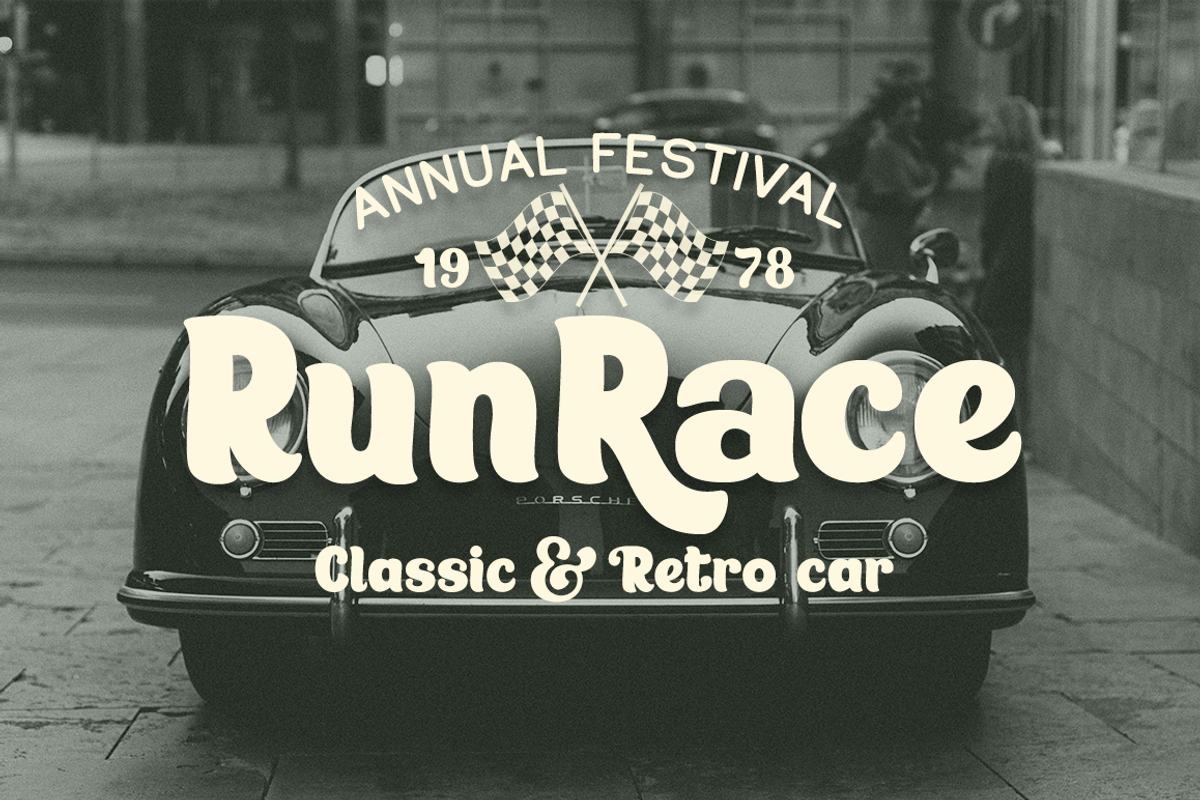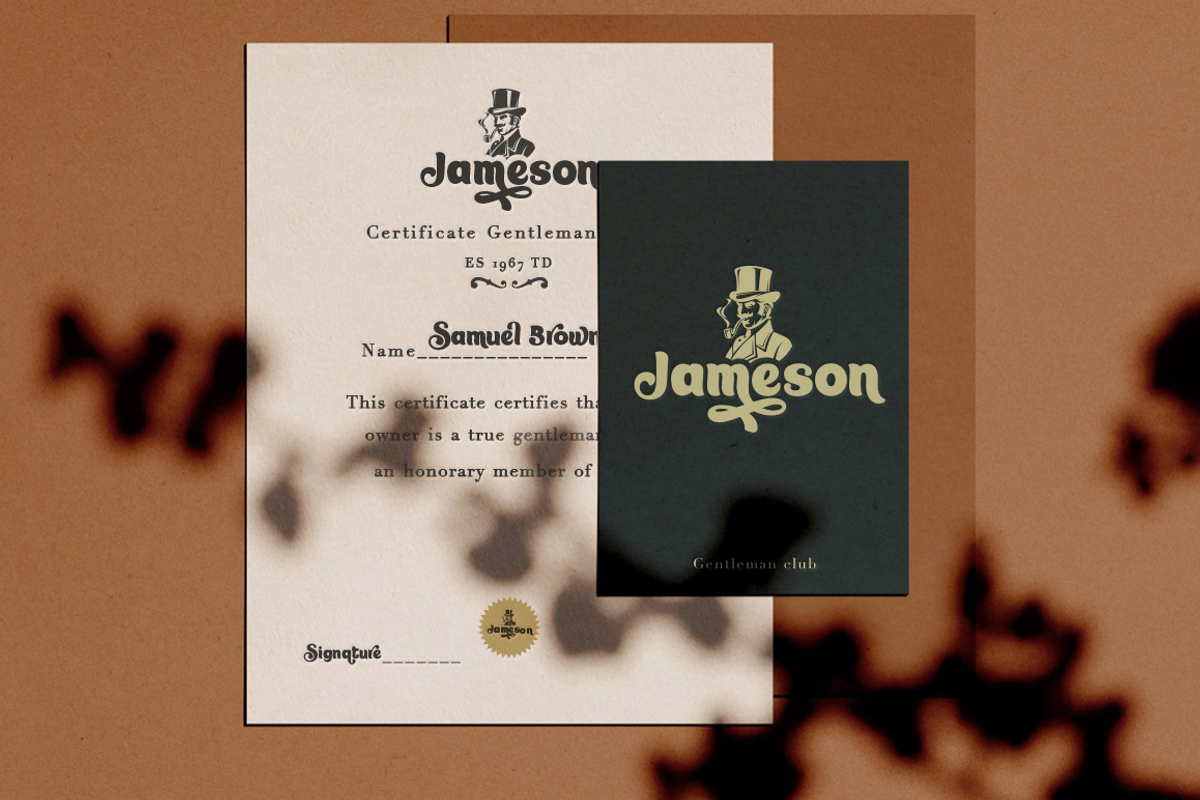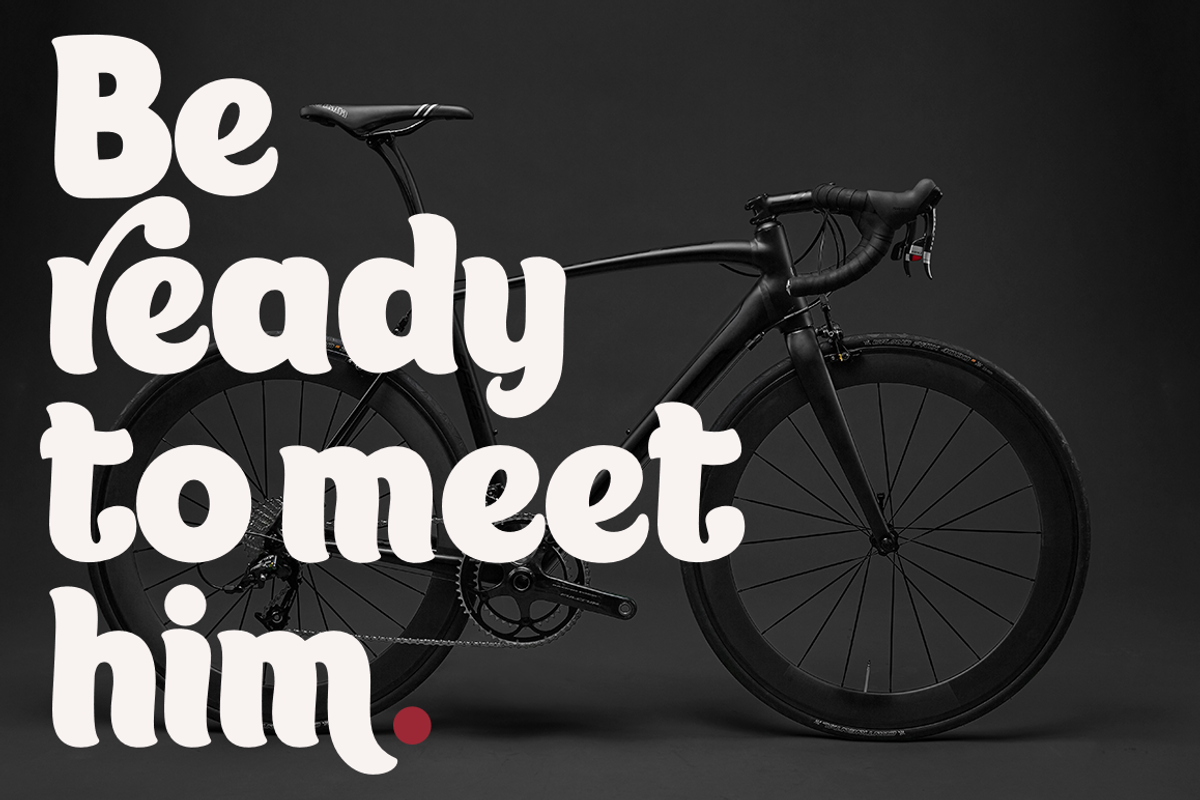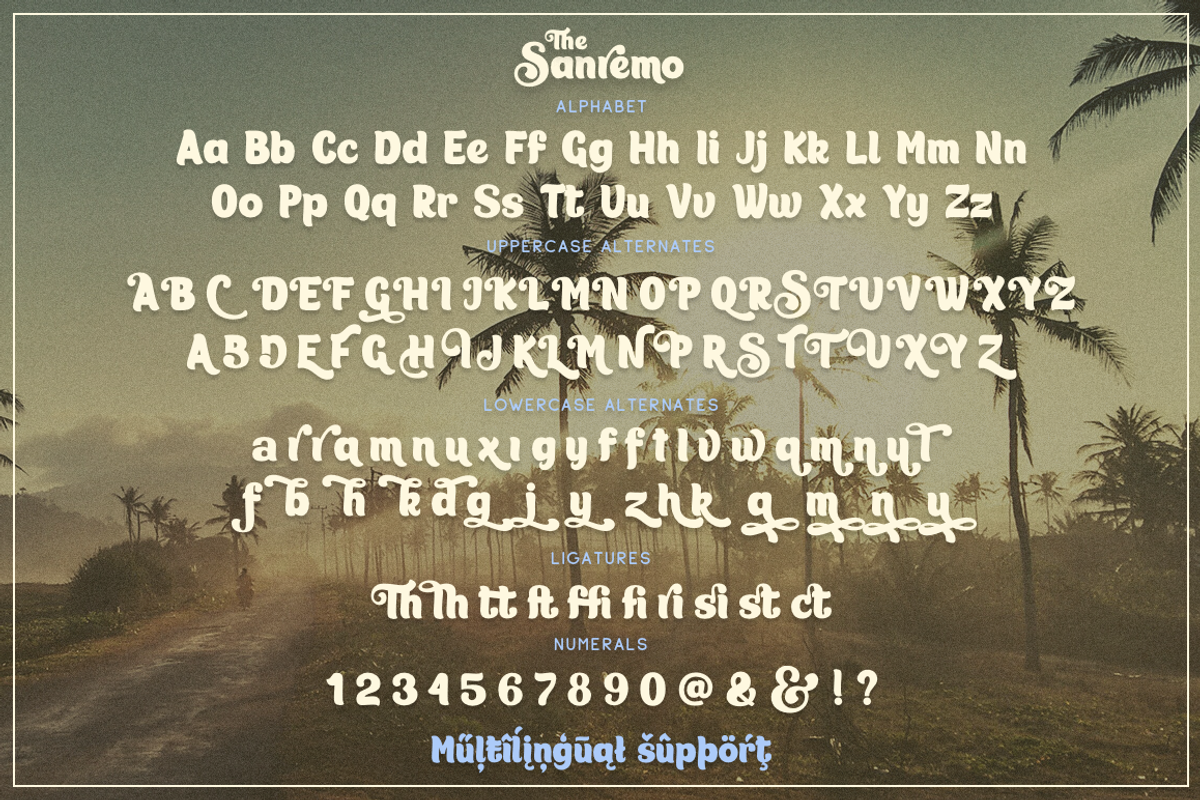
Sanremo
Sanremo - this bold display font is a stylish and original multipurpose font in a modern style with many alternatives and ligatures that are very attractive, with their help you can make your project unique. and also use the main set to highlight exactly what you need. All characters in this font are PUA-encoded and can be accessed from Glyph panel.
Following international symbols support: ÀÁÂÃÄÅĄÇĆÈÉÊËĘÌÍÎÏÐÑŃŁÒÓÔÕÖØÙÚÛÜŚŠŸÝŹŻŽßàáâãäåçèéêëìíîïðñòóôõöøùúûüýÿąćęłńśšźżž